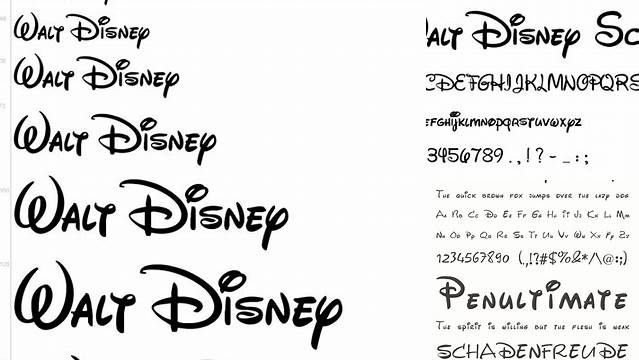
Are you looking to add a touch of Disney magic to your projects? Well, you're in luck! The iconic Walt Disney script font is highly sought after by designers and fans alike. While there isn't an official font directly from Disney, several excellent alternatives capture that whimsical, nostalgic feel. In this article, we'll explore how to find, download, and use these fonts for free, while respecting copyright and licensing.
Finding the Perfect Disney Font
Also, keep in mind that the best Disney font for free might require some digging. Don't settle for the first one you see! Take your time to compare different fonts and choose the one that best fits your project's needs. Pay attention to the details, such as the thickness of the lines, the curves of the letters, and the overall style. Some fonts may be more suitable for headings, while others may be better for body text.
Once you've found a few potential fonts, download them and test them out in your design software. Experiment with different sizes, colors, and effects to see how they look. You may even want to create a few mockups to get a better sense of how the font will work in your final project. Remember, the goal is to capture the essence of the Disney style while still creating a unique and visually appealing design.
Top Free Disney-Inspired Fonts
Let's talk about some specific free Disney fonts that are fantastic options. These fonts are inspired by the classic Disney logo and typography used in movies and theme parks. Here are a few standout choices:
- Waltograph: This is a popular choice that closely mimics the font used in the Walt Disney Pictures logo. It's great for titles and headings.
- Mouse Memoirs: Another excellent option that captures the playful spirit of Disney. It's versatile and works well in various design projects.
- Magic Kingdom: As the name suggests, this font evokes the enchantment of Disney theme parks. It's perfect for creating a magical atmosphere in your designs.
Using the Font in Your Projects
- Logos and Branding: Develop a unique logo or branding for your business or personal brand (if the license allows).
When using the font, consider the overall design and theme of your project. Pair it with complementary colors, images, and design elements to create a cohesive and visually appealing result. Experiment with different font sizes, styles, and effects to achieve the desired look. You can also add shadows, outlines, or gradients to enhance the font's appearance and make it stand out.
Conclusion: Adding a Touch of Disney Magic
Finding and using a free Walt Disney font is a great way to infuse your projects with the magic and nostalgia of Disney. By exploring different font options, understanding font licenses, and following the tips outlined in this article, you can create stunning designs that capture the essence of Disney's iconic style. So go ahead, download your favorite font, and let your creativity soar!